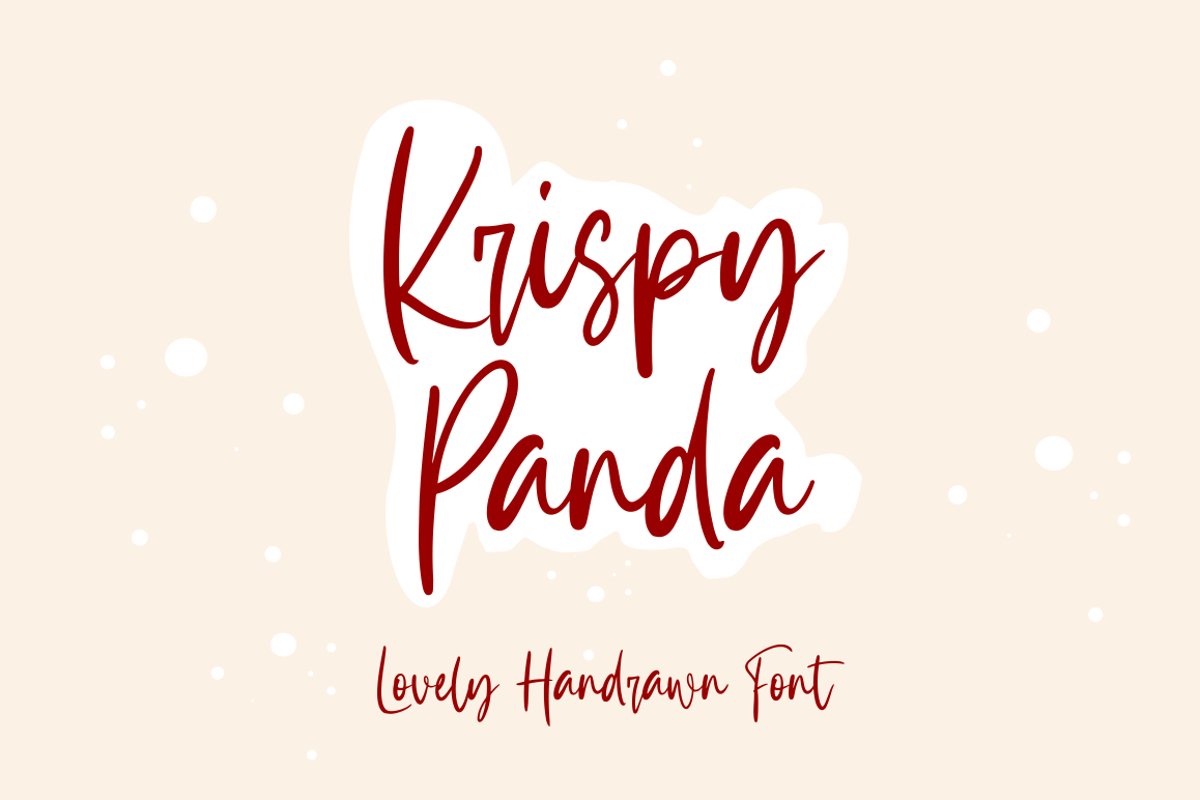
Krispy Panda - Lovely Handrawn Font
Krispy Panda is a lovely handwritten font, this font Is perfect for logo, invitation, stationery, wedding designs, social media posts, advertisements, product packaging, product designs, label, photography, watermark, special events or anything.
Krispy Panda comes with full set of uppercase and lowercase letters, multilingual symbols, numerals, punctuation.